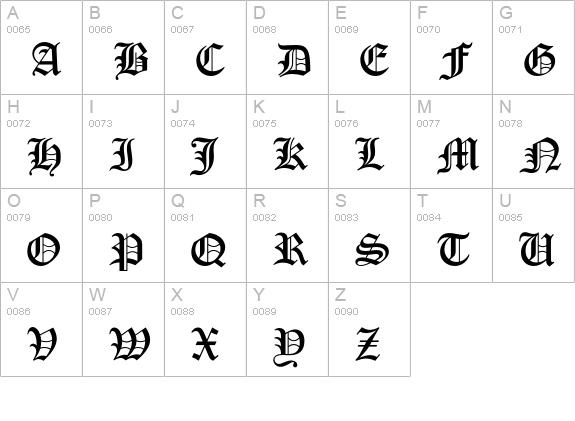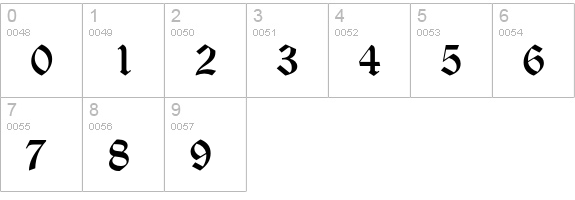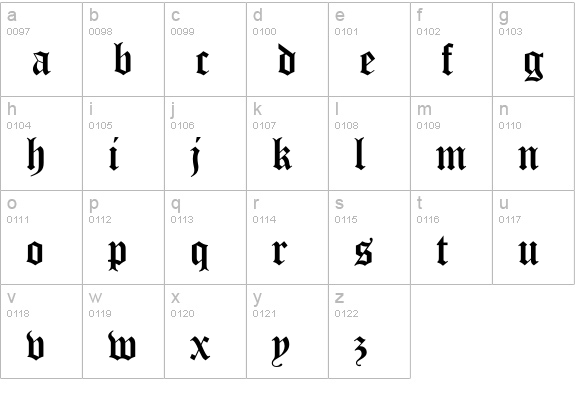
OldEnglishFiveOpti Font Details
OldEnglishFiveOpti is a classic and elegant font that exudes a sense of history and sophistication. With its intricate details and ornate design, this font is perfect for adding a touch of vintage charm to your projects. The OldEnglishFiveOpti font features beautifully crafted letterforms that are reminiscent of medieval manuscripts and old English calligraphy. This font is not only visually appealing but also highly versatile, making it suitable for a wide range of design projects including logos, invitations, posters, and more. Whether you're looking to add a touch of old-world elegance or a hint of medieval mystique to your designs, OldEnglishFiveOpti is the perfect choice. Best of all, OldEnglishFiveOpti is available for free download at FontsMarket.com. So why wait? Add a touch of timeless beauty to your designs with this exquisite font today!